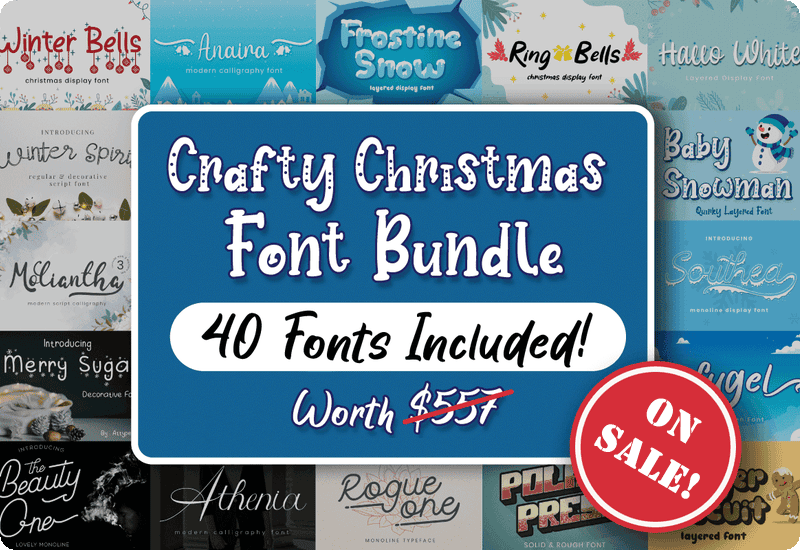
40 Stylish Fonts to Make Every Holiday Project Shine
The Crafty Christmas Font Bundle by Attypestudio brings you 40 stunning, festive fonts carefully designed to give your holiday projects a touch of class, creativity, and warmth. From script to handwritten, decorative to display, this bundle gives designers, crafters, and marketers the flexibility to produce beautiful typography across a wide range of media. Ideal for branding, Christmas cards, social media content, product packaging, apparel, and custom invitations.
A Closer Look at What You’ll Get
Each font included is handcrafted by Attypestudio, with an emphasis on elegance, legibility, and festive charm. Here’s a preview of what’s included:
- Baby Snowman – A fun and whimsical font with frosty character.
- Frostine Snow – A decorative font perfect for headlines and winter-themed designs.
- Hallo White, Browny Joy, Winter Bells – Script and handwritten fonts ideal for greeting cards, event invitations, and personalized decor.
- Merry Sugar & Ginger Biscuit – Playful, sugary fonts great for bakery branding and holiday packaging.
- Lovely Jeanne Duo & Lucky Green Duo – Matching script/display font pairs for seamless typography styling.
- Warm Snow Dingbats – Festive icons that complement your designs perfectly.
- Tyloos Signature & Rogue One – Elegant, professional typefaces for social media and editorial design.
- Harry Sunday, Rose Malow, Winter Spirit, Ring Bells – Fonts filled with joy, nostalgia, and decorative flair.
Final Thoughts